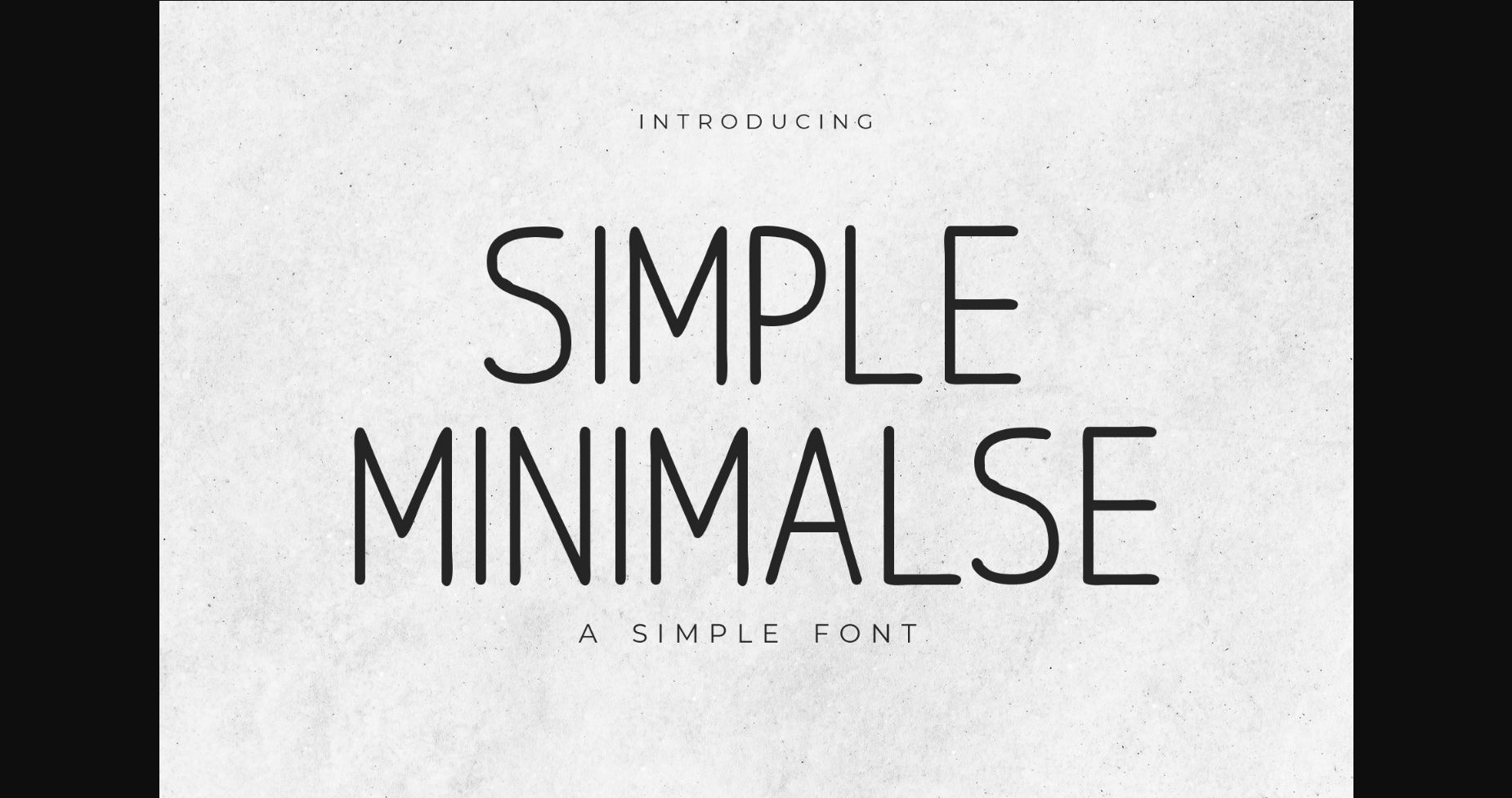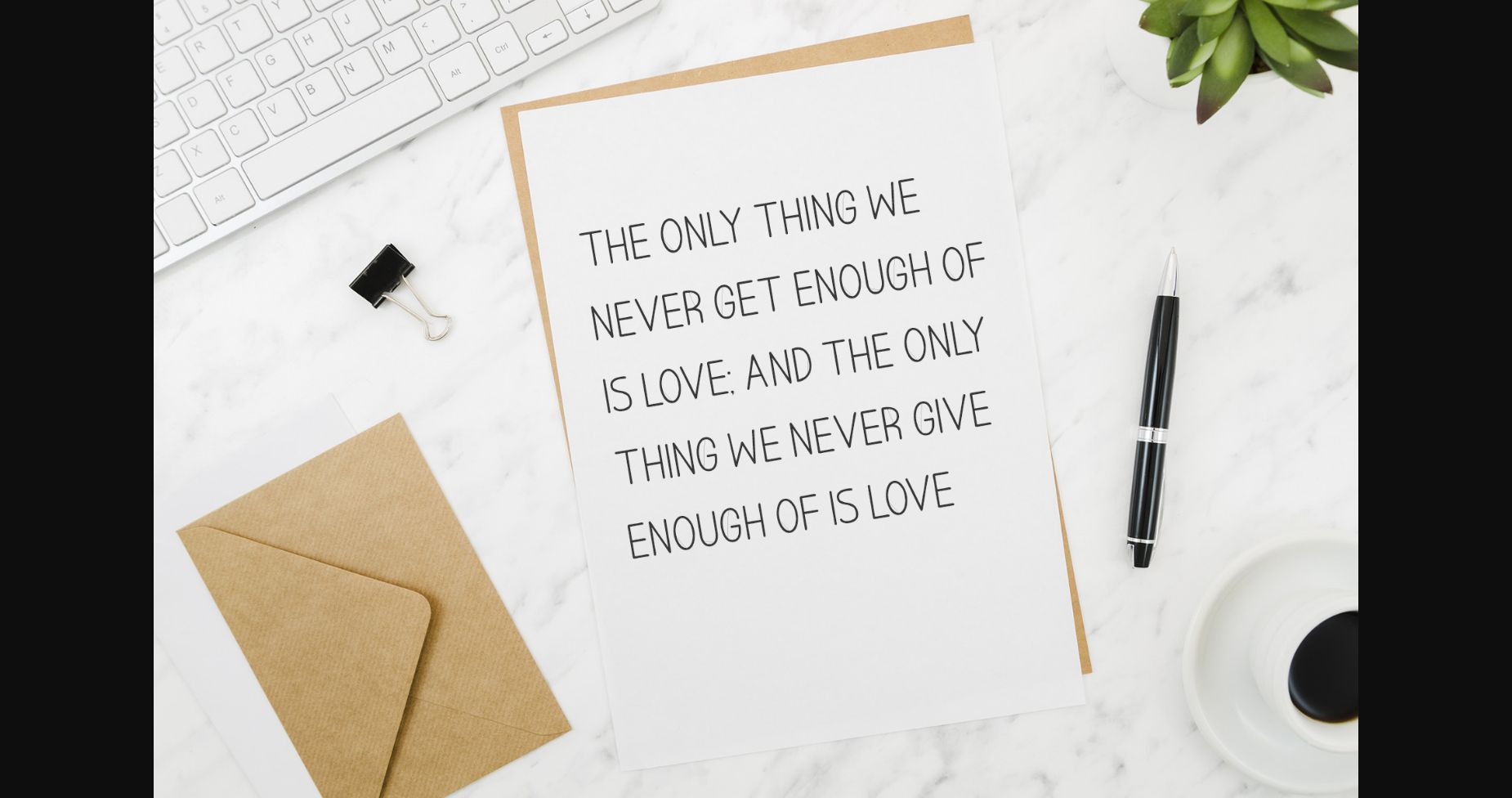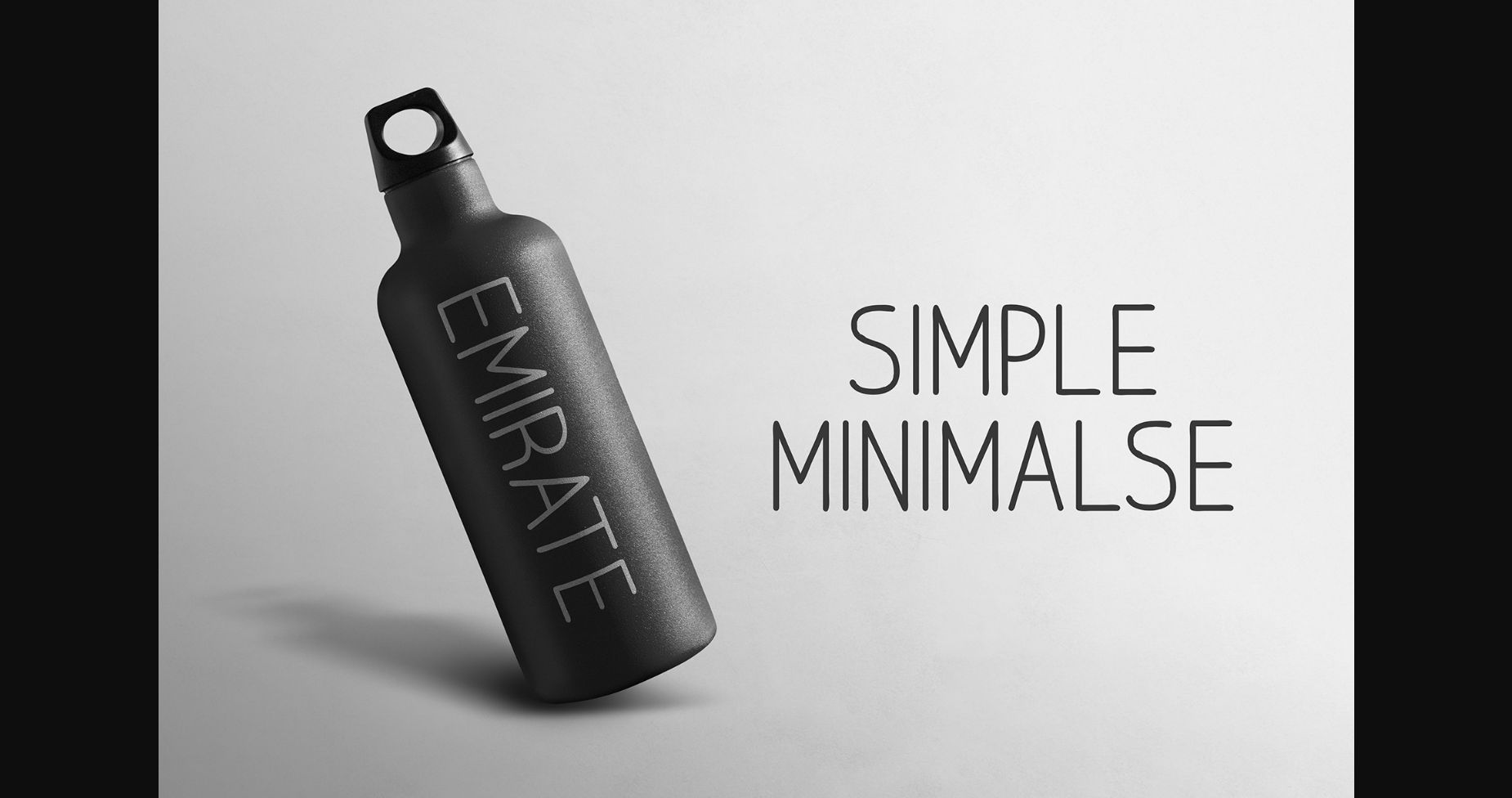
About Simple Minimalse Font
Simple Minimalse concentrates elegance into one truly outstanding sans serif font. It maintains its classy calligraphic influences while feeling contemporary and fresh.